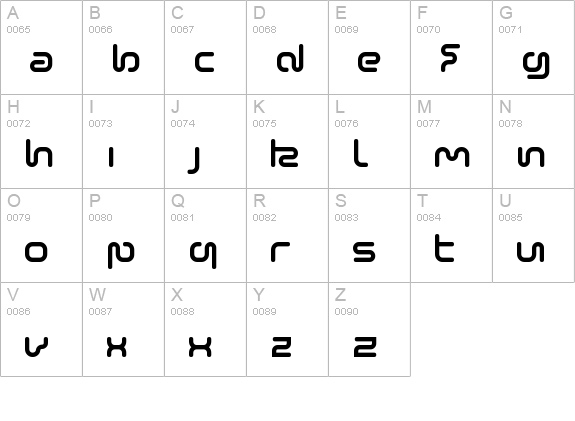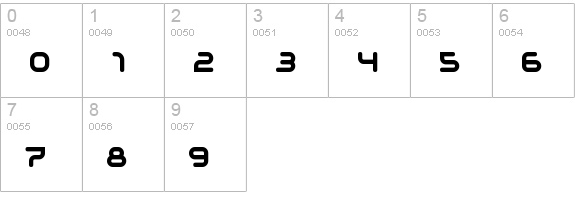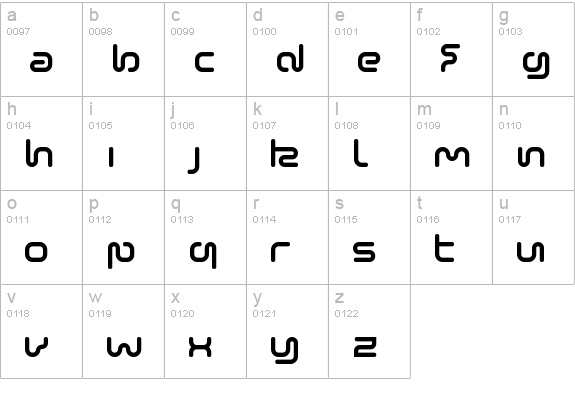
Sonic Empire Font Details
Introducing Sonic Empire font, a captivating typeface that will transport you to a world of speed and adventure. With its clean and modern design, this font captures the essence of Sonic's iconic speed and energy, making it the perfect choice for projects that require a touch of excitement and dynamism. Sonic Empire font is not only visually striking but also versatile, making it suitable for a wide range of design applications. Whether you're creating a logo, poster, website, or any other design project, this font will add a bold and confident touch to your work. The best part? Sonic Empire font is available for free download at FontsMarket.com. That's right, you can get your hands on this exceptional font without spending a dime. FontsMarket.com is a trusted source for high-quality fonts, offering a wide selection of fonts for designers and creatives alike. Don't miss out on the opportunity to elevate your designs with Sonic Empire font. Download it for free at FontsMarket.com and unleash your creativity today.